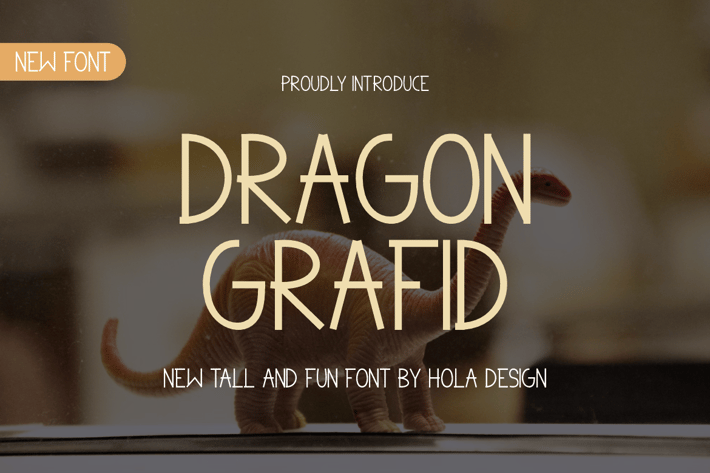
Dragon Grafid - Sans Serif & Light Font
Dragon Grafid Font is unique . Ready to use for your design like labeling, movie sceen, poster, movie title, gigs, album covers, logos, and much more.